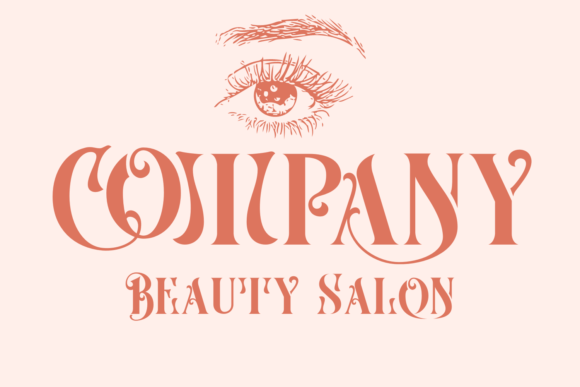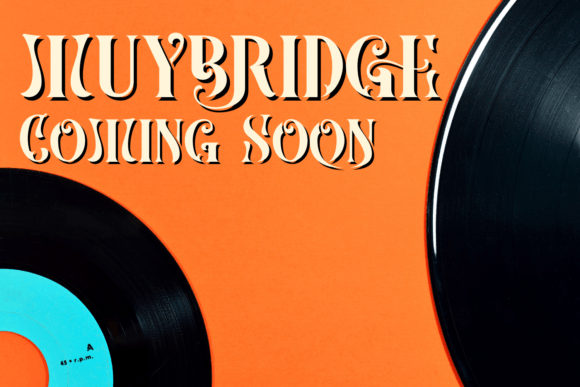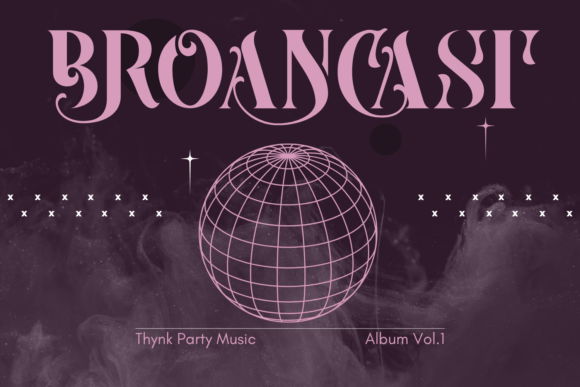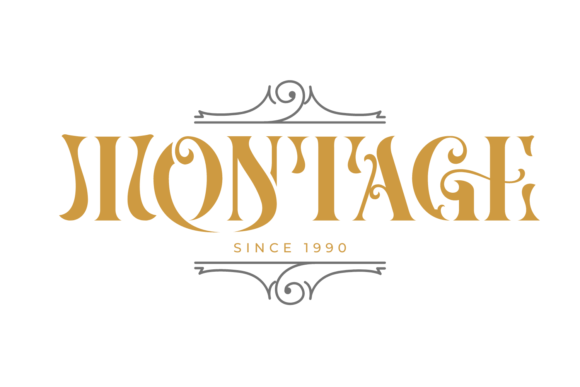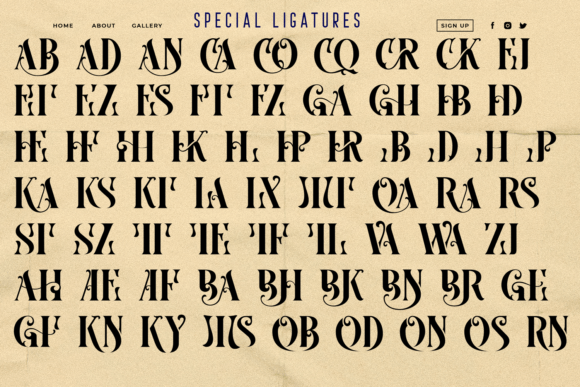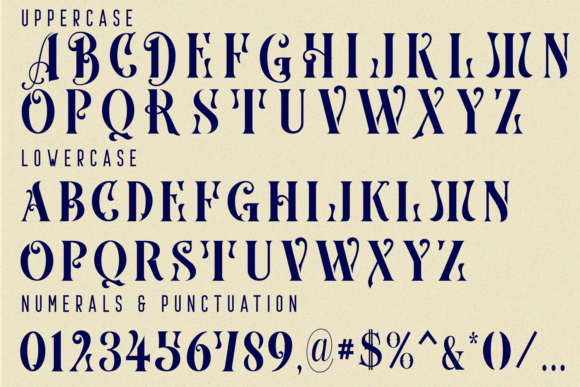
Introducing Albrega Changes: A Stylish Serif Typeface with a Victorian Twist
In the world of typography, fonts play a crucial role in conveying messages, expressing emotions, and creating brand identities. For designers and crafters, finding the perfect font can be a daunting task. However, if you’re looking for a stylish serif typeface that combines elegance with a touch of modernity, look no further than Albrega Changes.
What is Albrega Changes?
Albrega Changes is a sophisticated serif typeface that boasts splendid ligatures and alternates, making it perfect for branding purposes. This font can be categorized under the modern Victorian style, thanks to its slight stencil modification. The result is a unique and eye-catching font that’s sure to make your designs stand out.
Key Features of Albrega Changes
- All-caps font: Albrega Changes is an all-caps font, which means you can create stunning headlines, titles, and branding materials with ease.
- Varied letter and character heights: This font features different letters and character heights, adding a touch of elegance and sophistication to your designs.
- PUA encoded: Albrega Changes is PUA (Private Use Area) encoded, which means you can access all the glyphs and swashes without any hassle.
- Ligatures and alternates: This font comes with splendid ligatures and alternates, allowing you to create beautiful and intricate designs.
Why Choose Albrega Changes?
So, why should designers and crafters choose Albrega Changes for their projects? Here are a few compelling reasons:
- Versatility: Albrega Changes is suitable for a wide range of branding purposes, from logos and headlines to packaging and advertising materials.
- Elegance: This font exudes elegance and sophistication, making it perfect for high-end brands, luxury products, and creative projects.
- Uniqueness: The slight stencil modification and modern Victorian style of Albrega Changes ensure that your designs will stand out from the crowd.
How to Use Albrega Changes
- Experimenting with ligatures and alternates: Try out different ligatures and alternates to create unique and stunning designs.
- Pairing with other fonts: Albrega Changes can be paired with other fonts to create a unique visual identity for your brand.
In conclusion, Albrega Changes is a stylish serif typeface that offers a perfect blend of elegance, sophistication, and modernity. With its splendid ligatures, alternates, and PUA encoding, this font is perfect for designers and crafters looking to create stunning branding materials. Whether you’re working on a luxury brand, a creative project, or a personal design endeavor, Albrega Changes is sure to impress.